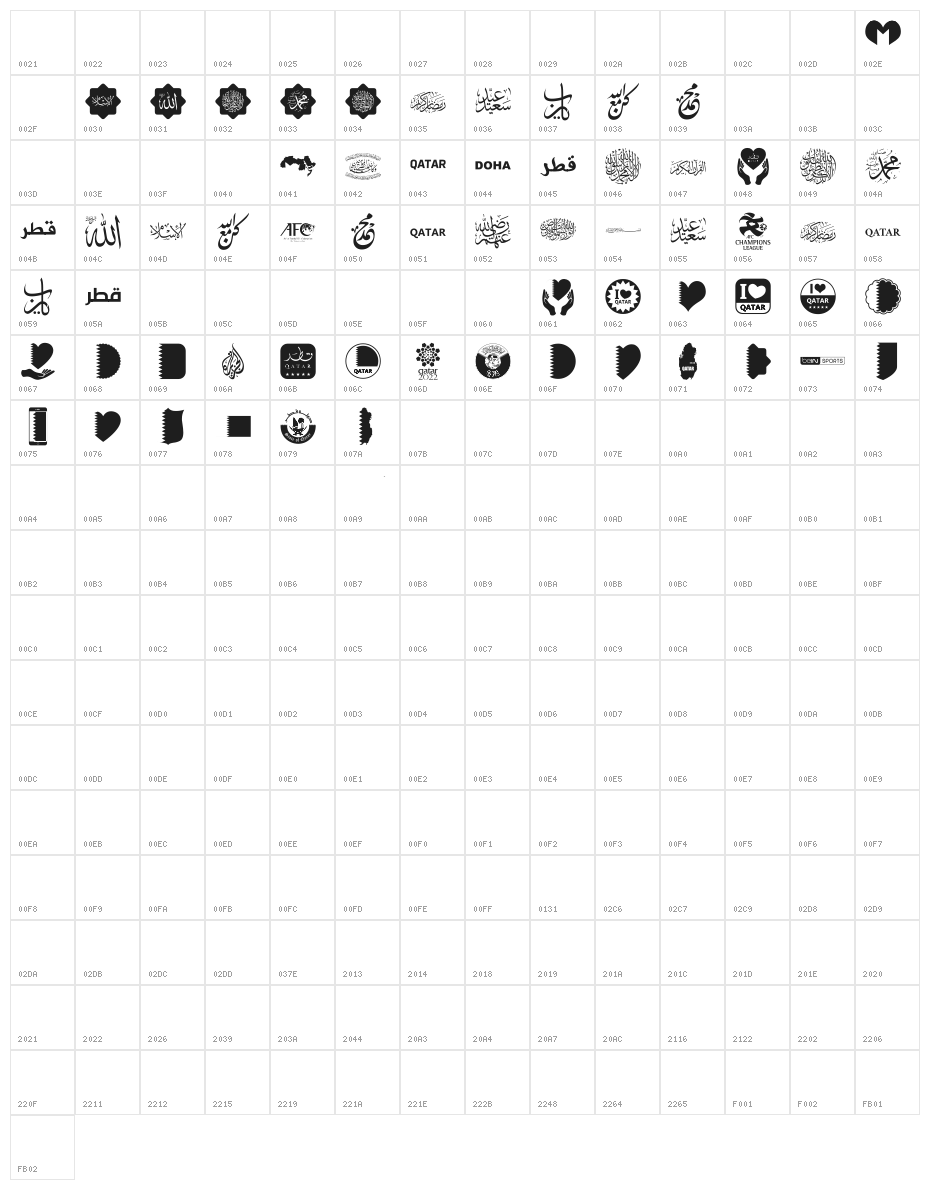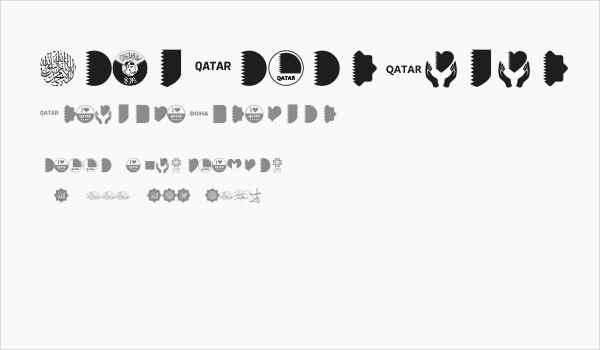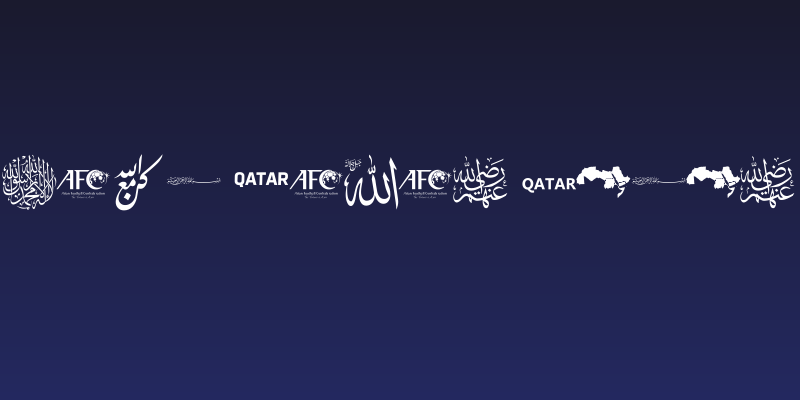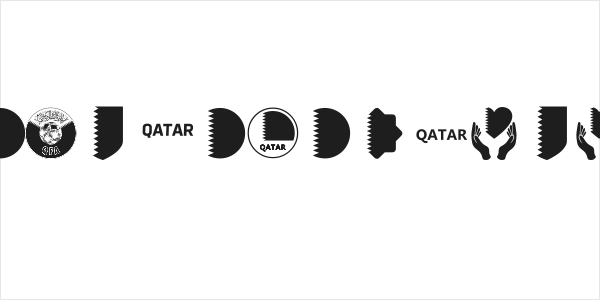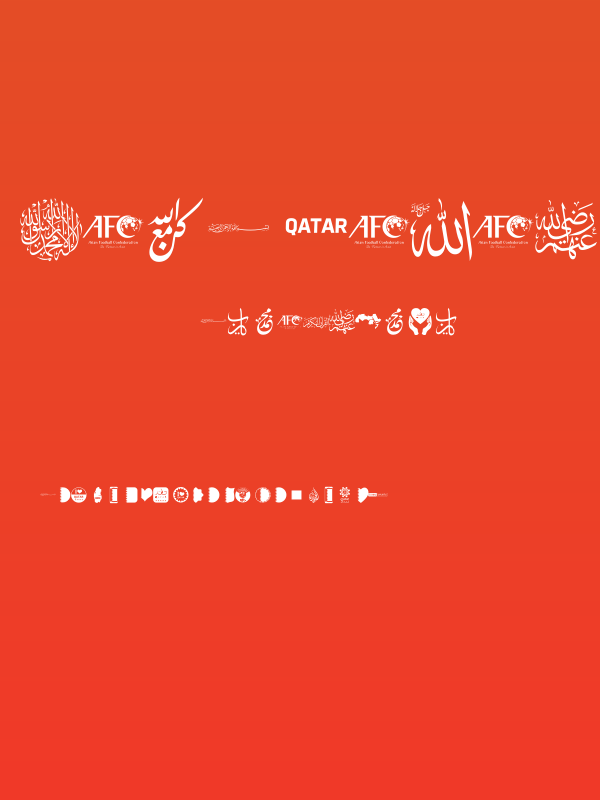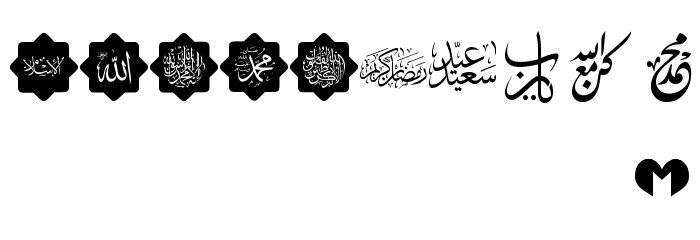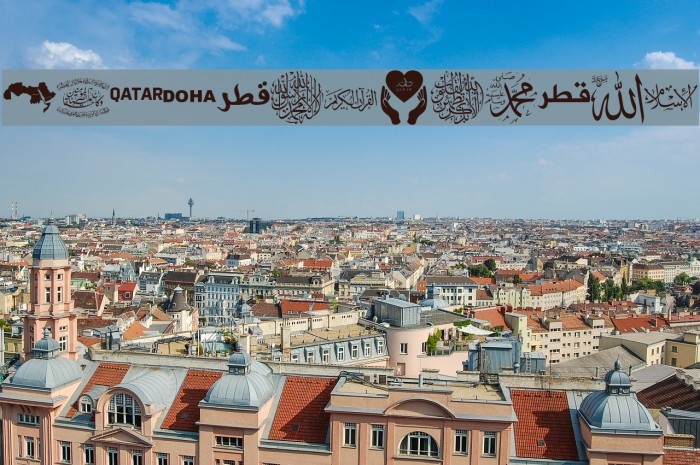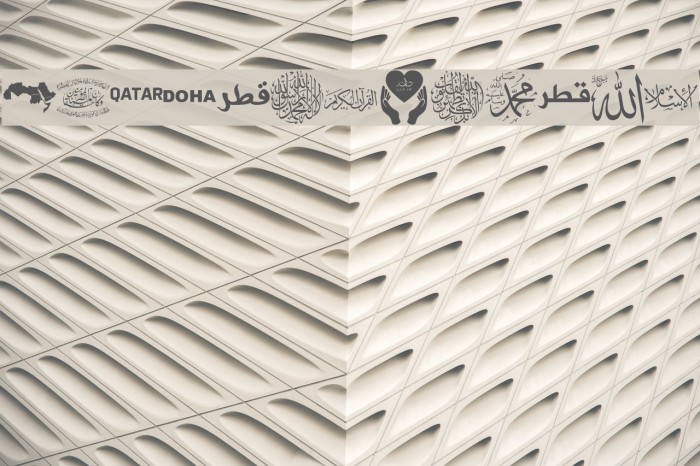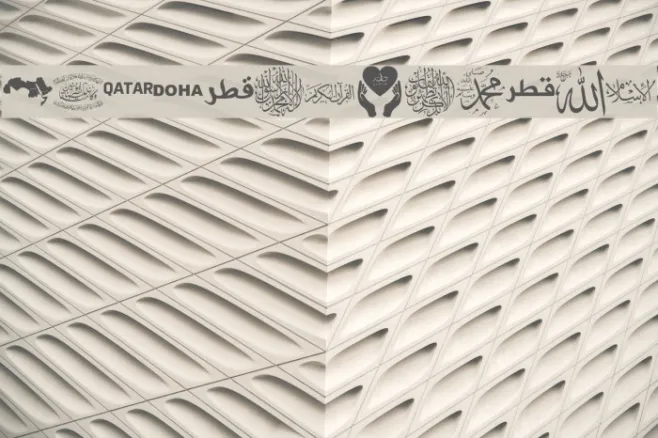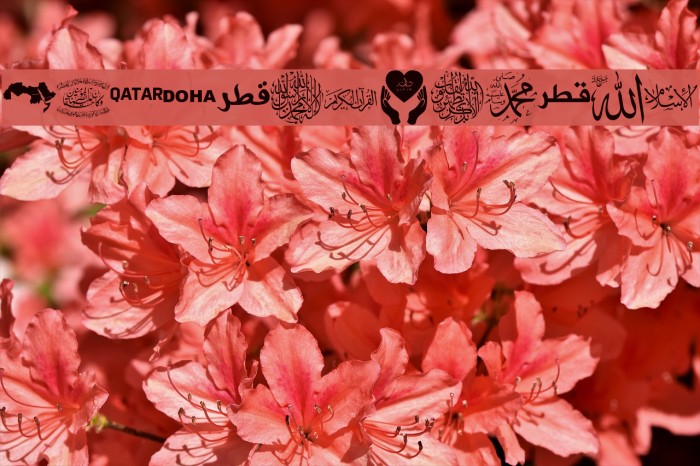
Font Color Qatar Font
Font Color Qatar Description
A decorative and display-oriented collection featuring a mix of Arabic calligraphy, geometric shapes, heart motifs, and Qatar-related symbols. The set includes both Latin and Arabic scripts, with a strong emphasis on cultural and national identity, as well as sports and celebratory themes.
| Overall Style | Decorative, Cultural, Modern |
| Use Case | Logos, Posters, Event Branding, Souvenirs |
| Proposed Projects | Branding for Qatari events, sports logos, cultural posters, souvenirs, and themed graphics. |